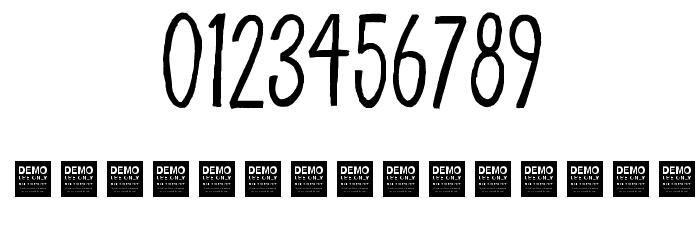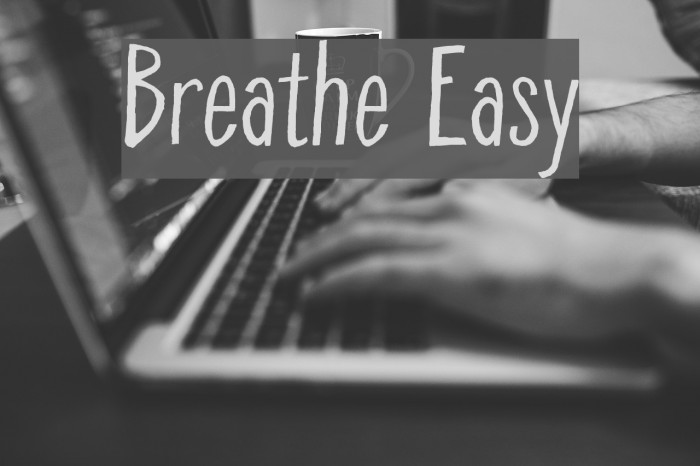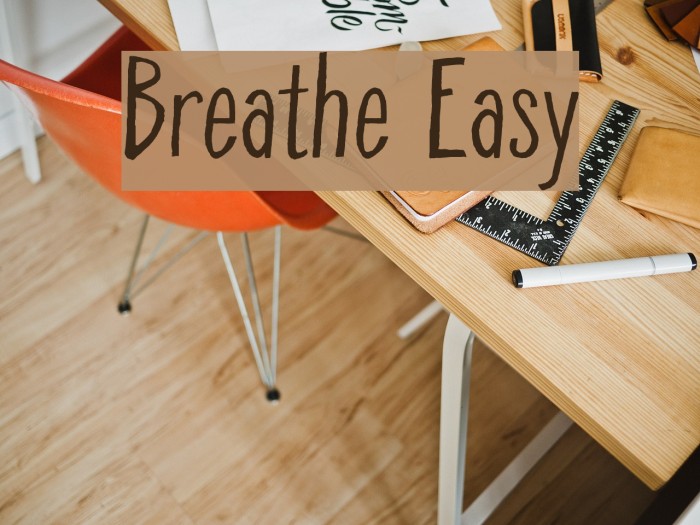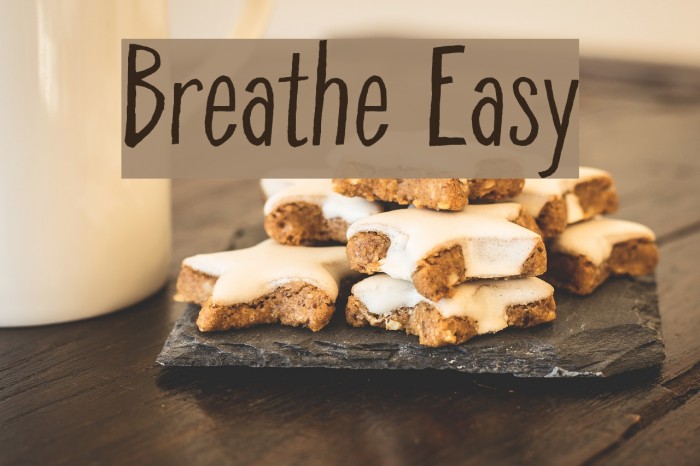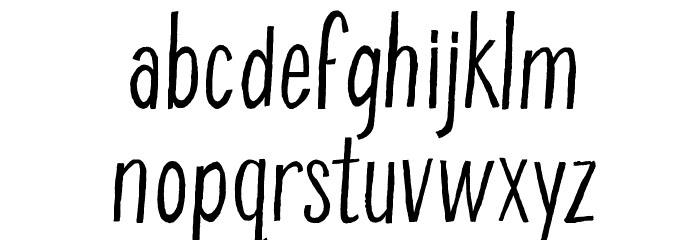
Breathe Easy Font
Breathe Easy Description
This font features a casual, handwritten style with a slightly uneven baseline, giving it a relaxed and approachable feel. The characters are elongated with a slight slant, adding a dynamic and informal touch. The strokes are consistent in width, providing a uniform appearance while maintaining a playful vibe. The font's organic and natural look makes it ideal for projects that require a personal and friendly tone. It is versatile enough for both digital and print media, offering a unique charm that stands out.
| Use Case | Headlines, Logos, Social media graphics |
| Proposed Projects | Ideal for greeting cards, personal blogs, casual branding, and social media graphics. |